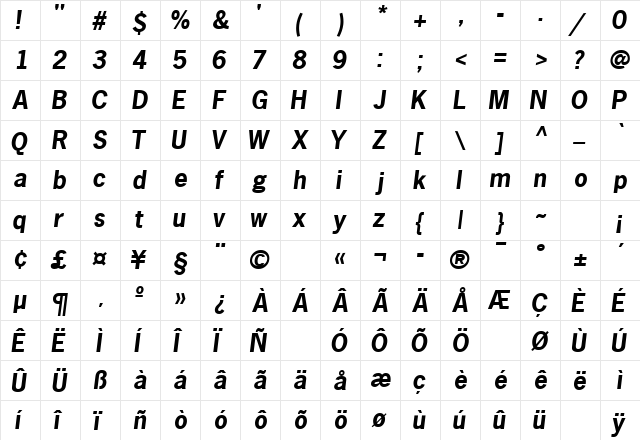
MacroBlackSSK Bold Italic Font Preview
MacroBlackSSK Bold Italic
MacroBlackSSK Bold Italic Font Details
Design Context for MacroBlackSSK Typeface
MacroBlackSSK is a composed and adaptable typeface that performs quietly and consistently across a wide range of design contexts. The dynamic lean of this cut emphasises speed and emphasis in any layout. Its bold stroke weight gives it real presence on the page.
Pro Tip: Try MacroBlackSSK for annotation and caption copy alongside an upright companion — the contrast in angle creates a dynamic but ordered typographic system.